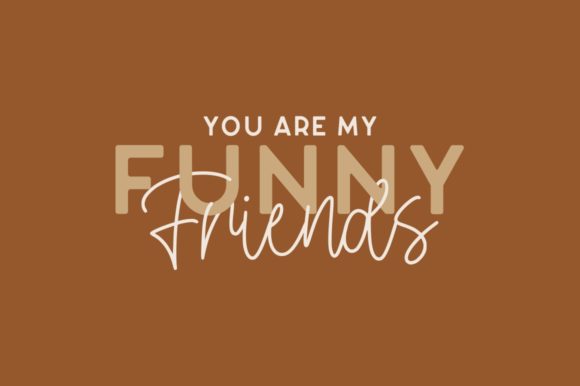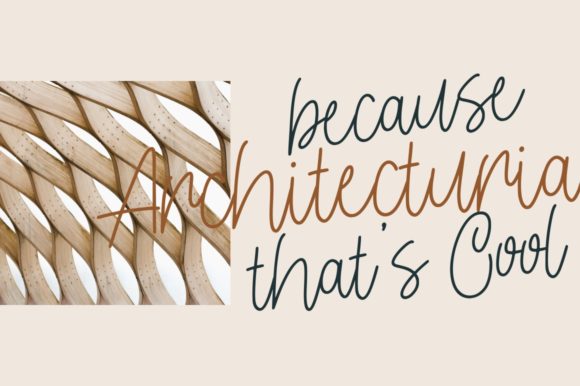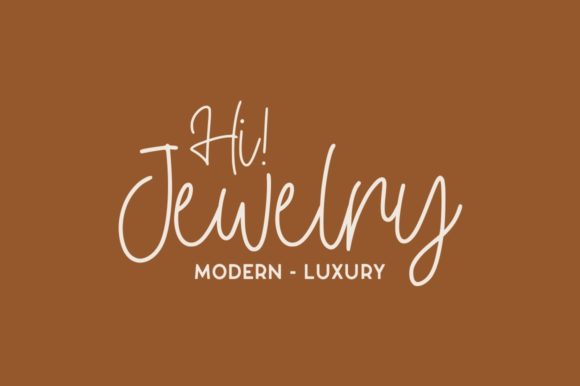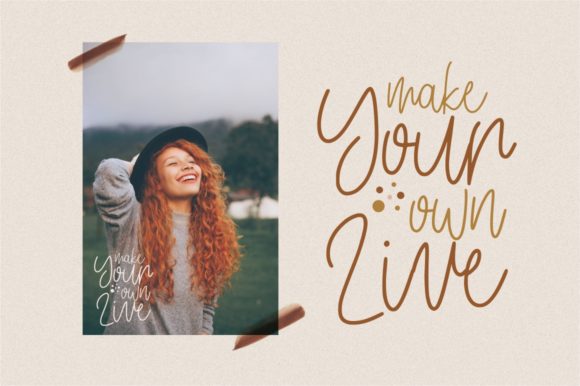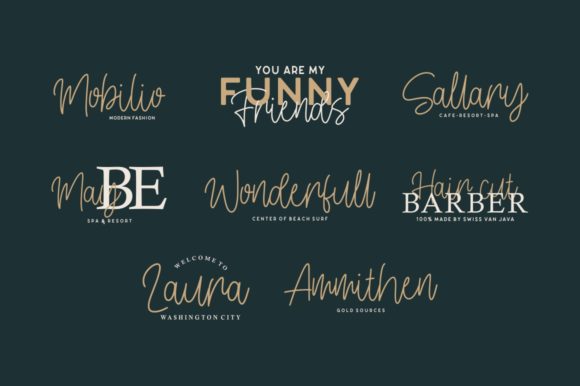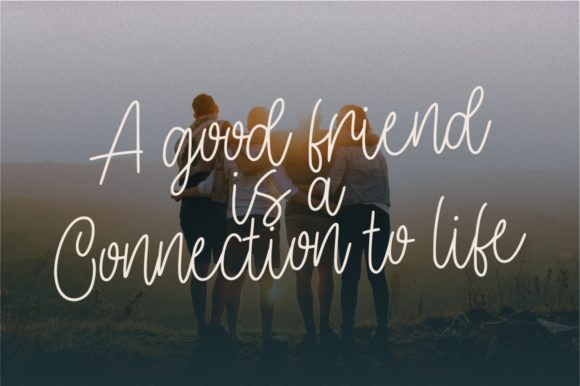
Introducing Conelly Font: The Perfect Blend of Nature and Modernity
Are you tired of using the same old fonts in your creative projects? Look no further than Conelly Font, a stunning natural and modern handwritten font that’s sure to add a dash of authenticity to your next adventure. In this article, we’ll dive into the world of Conelly Font, exploring its unique features, uses, and benefits for designers and crafters alike.
The Story Behind Conelly Font
Conelly Font is a beautiful, handcrafted typeface that’s inspired by the natural world. Its creator, [Designer’s Name], aimed to design a font that would evoke a sense of earthiness and modernity, perfect for designers and crafters looking for a unique and authentic look. With Conelly Font, you can add a touch of whimsy and personality to your projects, setting them apart from the rest.
Key Features of Conelly Font
- Natural and Modern Handwritten Style: Conelly Font boasts a beautiful, handwritten style that’s both natural and modern. Its flowing lines and organic feel make it perfect for a wide range of creative projects.
- Authentic Look and Feel: Conelly Font’s unique design ensures that your projects stand out with an authentic look and feel. Whether you’re working on a branding project, packaging design, or social media graphics, Conelly Font is sure to impress.
- Highly Versatile: Conelly Font is incredibly versatile, making it suitable for a wide range of applications, from digital projects to print materials.
- Easily Readable: Despite its unique, handwritten style, Conelly Font is highly readable, even at smaller font sizes.
Uses for Conelly Font
Conelly Font is perfect for a variety of creative projects, including:
- Branding and Logos: Add a touch of personality to your brand with Conelly Font. Its unique style ensures that your logo stands out and leaves a lasting impression.
- Packaging Design: Conelly Font is perfect for packaging design, adding a natural and modern touch to your product labels and packaging materials.
- Social Media Graphics: Elevate your social media presence with Conelly Font. Use it to create eye-catching graphics, quotes, and promotional materials.
- Invitations and Stationery: Conelly Font is ideal for creating beautiful, handmade-style invitations, stationery, and greeting cards.
Conelly Font offers a range of benefits for designers and crafters, including:
- Unique and Authentic Look: Conelly Font ensures that your projects stand out with a unique and authentic look that’s sure to impress.
- High-Quality Design: Conelly Font is designed with high-quality in mind, ensuring that your projects look professional and polished.
| Author | goodjavastudio |
In conclusion, Conelly Font is a stunning natural and modern handwritten font that’s perfect for adding a dash of authenticity to your next creative adventure. With its unique features, versatility, and ease of use, Conelly Font is an excellent choice for designers and crafters looking to elevate their projects. Whether you’re working on branding, packaging design, social media graphics, or stationery, Conelly Font is sure to impress.